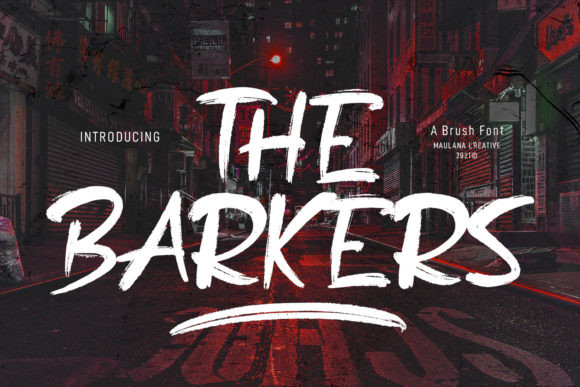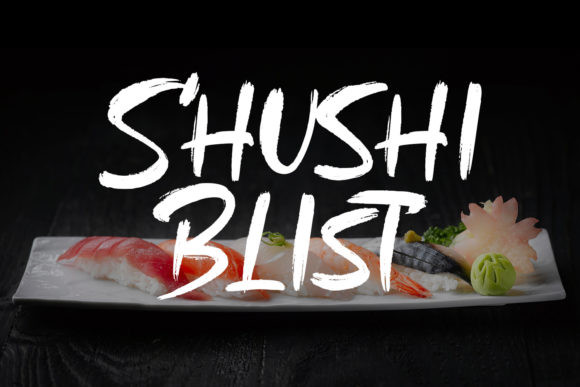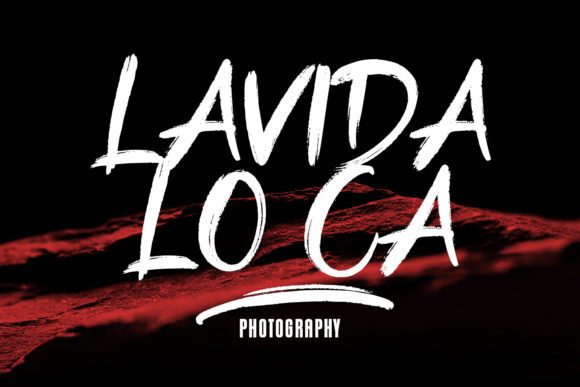
The Barkers Font
The Barkers is an awesome, graffiti-styled display font that has a street art vibe. This font is suitable for designs such as t-shirts, sportswear, logos, advertisements, clothing, and more.